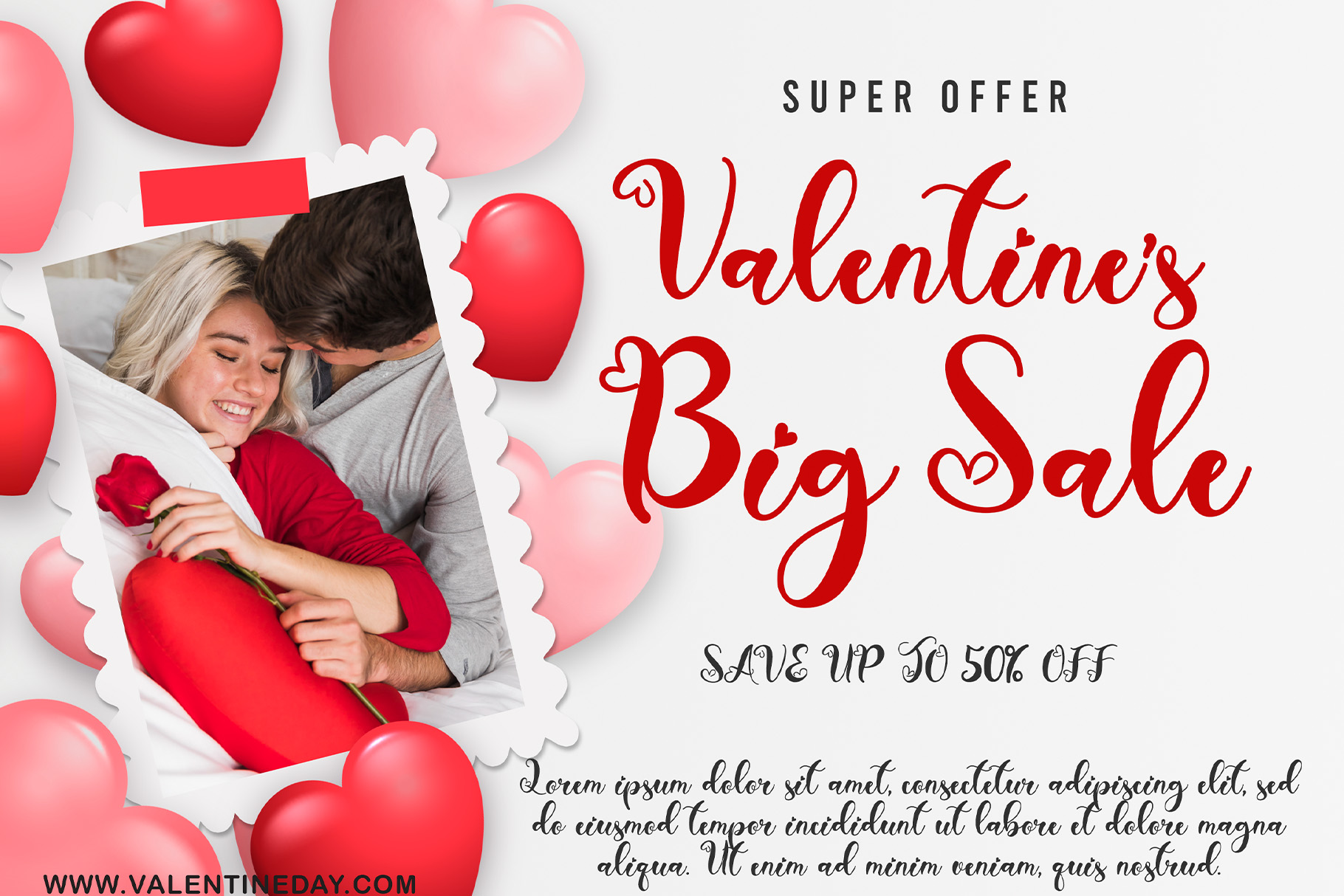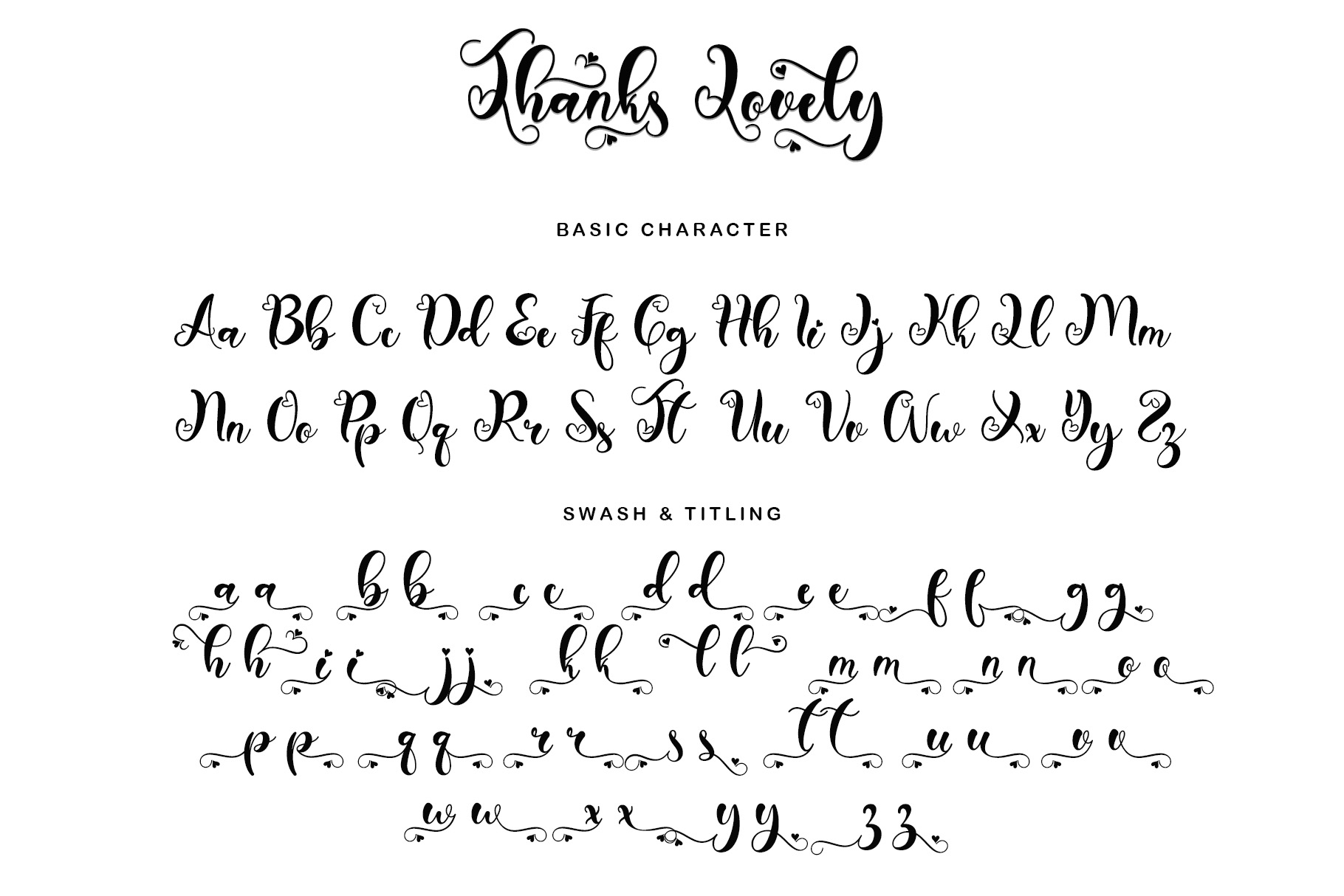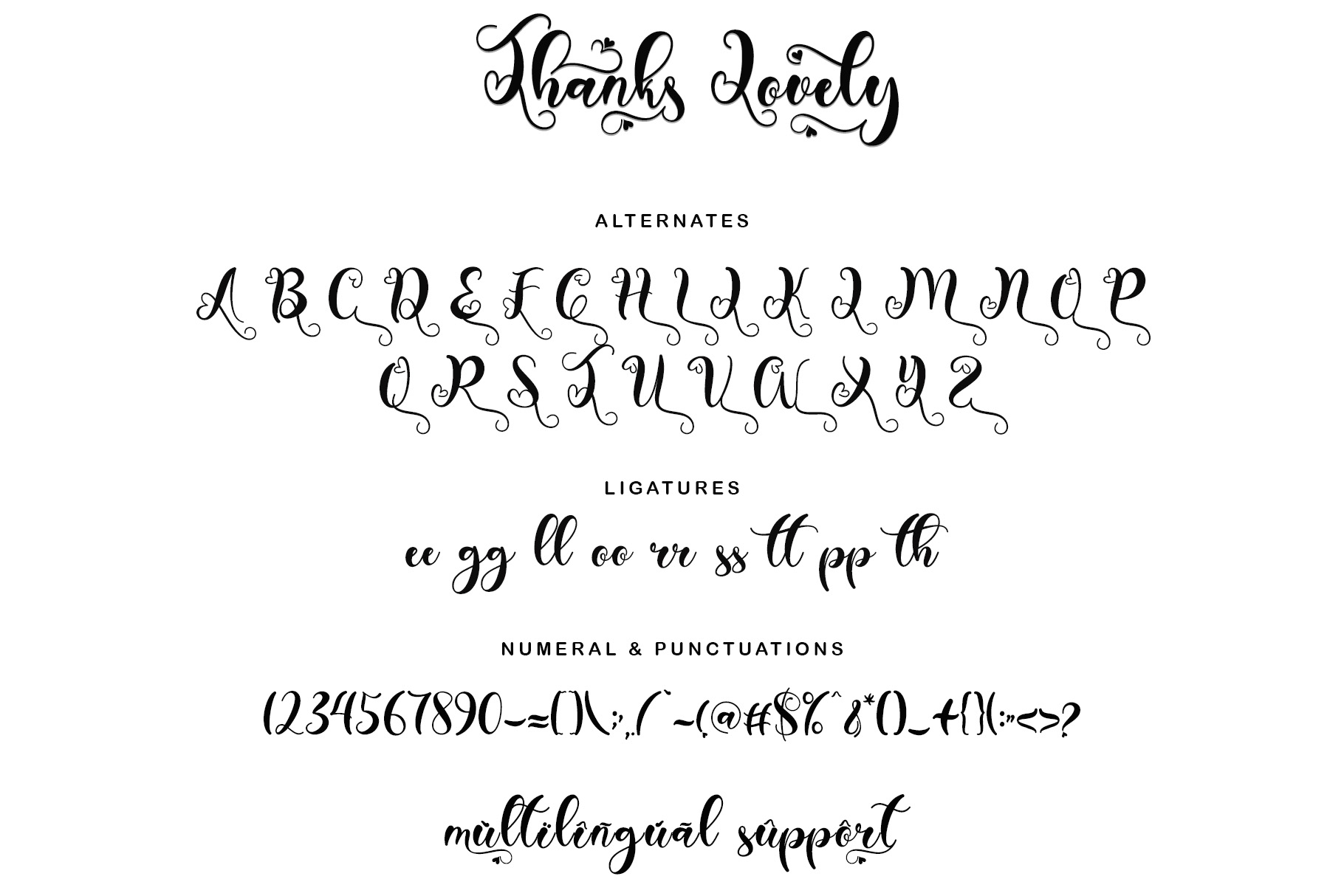
Thanks Lovely Font is a beautiful and beautiful calligraphy font with a heart decoration. The decoration in this font is very easy to use, because it has been specially designed. There is also a guide to using decorations in the preview. This font is very complete, because there are swash, titling, alternates, ligatures, numerals, punctuations, and multilingual support. “Thanks Lovely” is perfect for valentines, christmas, thanksgiving, weddings, invitations, promotions, mugs, tags, new year, and more.